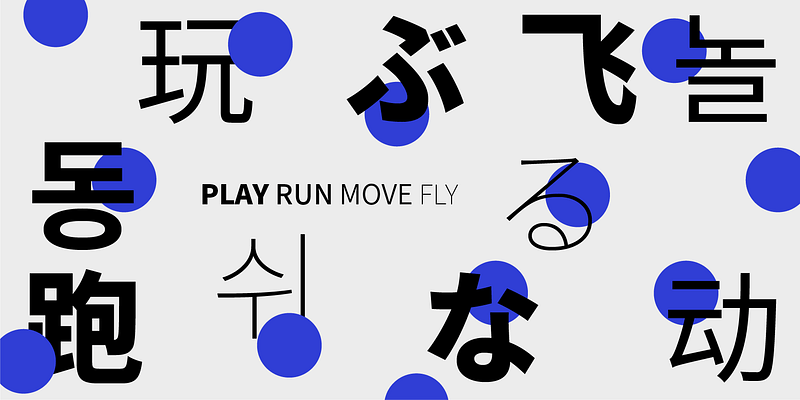
Source Han Sans is a modern gothic (sans-serif) typeface family, composed of seven weights, which covers a wide range of usage from composition of body texts to display lines. Also, this typeface is recommended for users who need multilingual fonts, as this typeface family is composed of Pan-CJK fonts supporting Chinese, Japanese and Korean (and for Chinese, both Simplified and Traditional Chinese glyphs including those used in Hong Kong are supported). In the case of the Source Han Sans - Pan-CJK Japanese fonts, the glyphs displayed by default are for Japanese, but glyphs for the other languages can also be used in InDesign, Illustrator and Photoshop. *Version: 2.005* Simplified Chinese: All GB 18030 hanzi, all 8,105 hanzi of Tōngyòng Guīfàn Hànzìbiǎo (通用规范汉字表), 199 of which are outside of GB 18030 Traditional Chinese — Taiwan: All Big Five hanzi (aka CNS 11643 Planes 1 and 2), all HKSCS-2016 hanzi (the glyphs may or may not adhere to the Taiwan MOE glyph standard), seven ETen hanzi, 15 additional hanzi Traditional Chinese — Hong Kong: All Big Five hanzi (aka CNS 11643 Planes 1 and 2),all HKSCS-2016 hanzi, seven ETen hanzi, 15 additional hanzi Japanese: All Adobe-Japan1-6 kanji (a superset of those in JIS X 0208, JIS X 0213 & JIS X 0212) Korean: All contemporary (11,172) and 500 high-frequency archaic hangul syllables, conjoining hangul jamo (with full archaic hangul support), all KS X 1001 and KS X 1002 hanja (7,476), 466 additional hanja __Need some guidance for using this family? Click on the PDF below.__